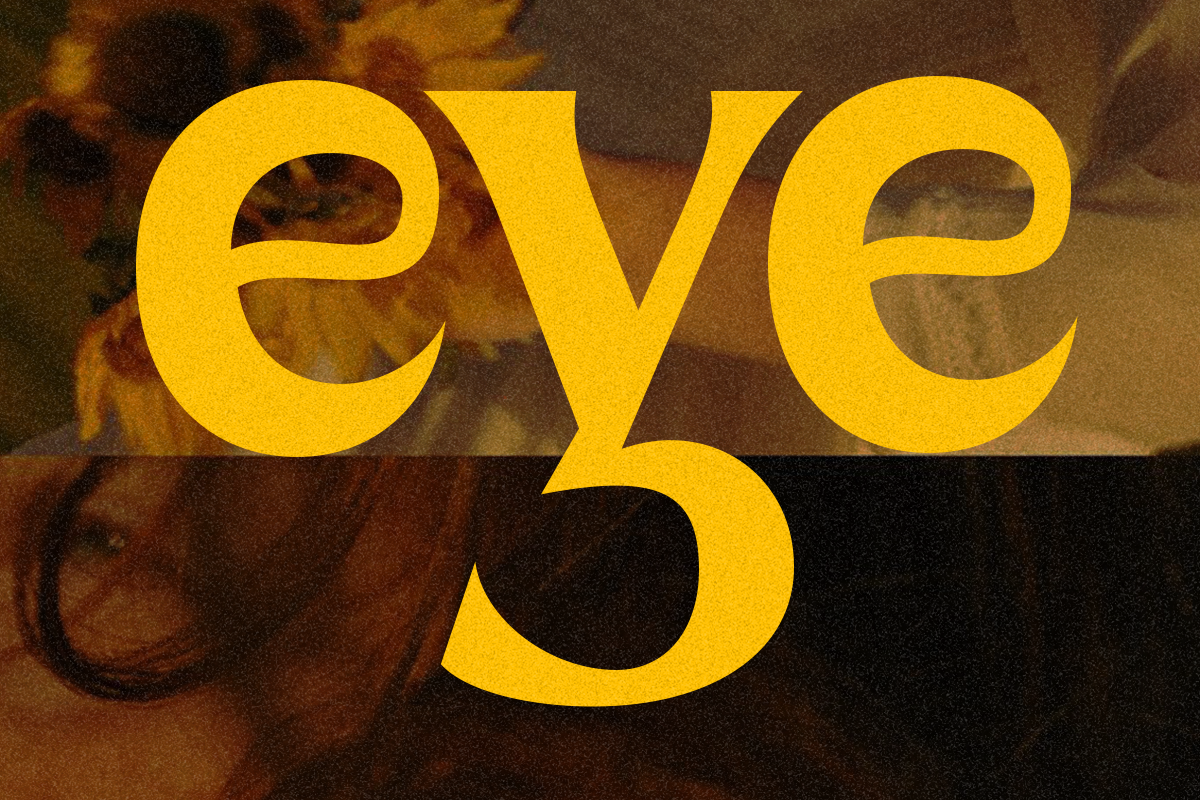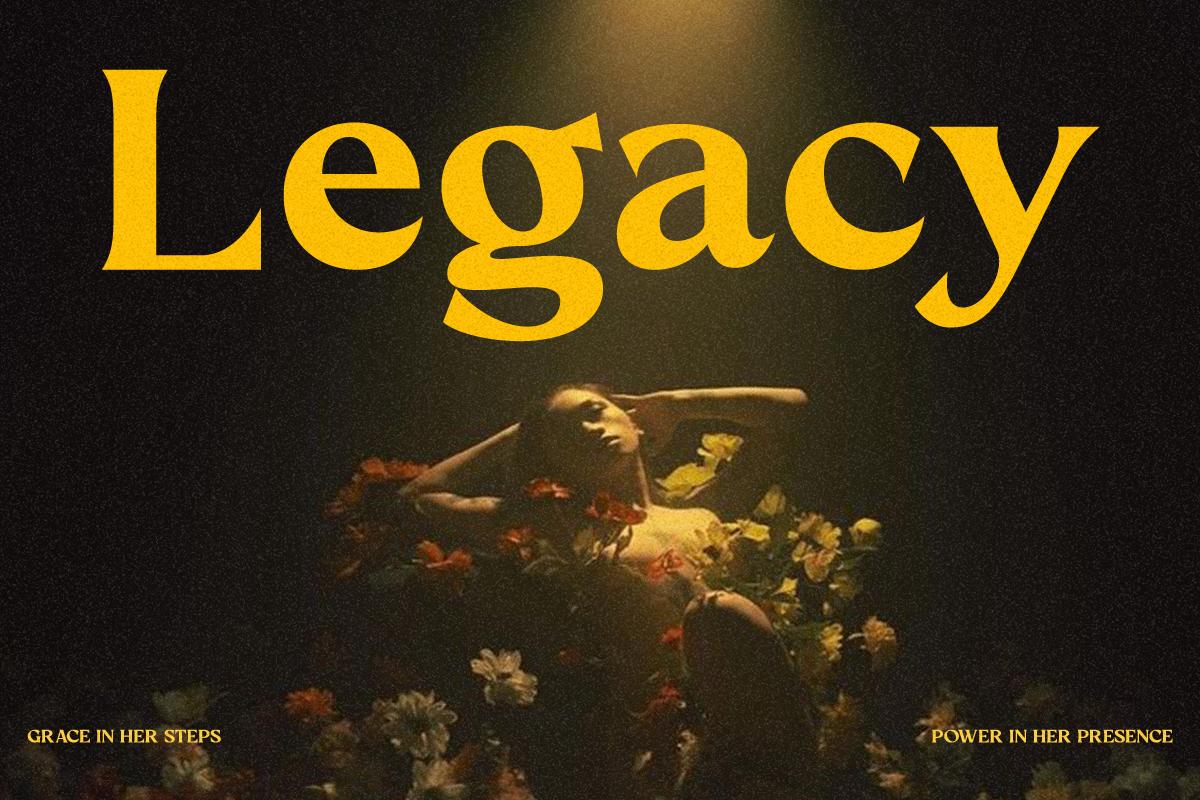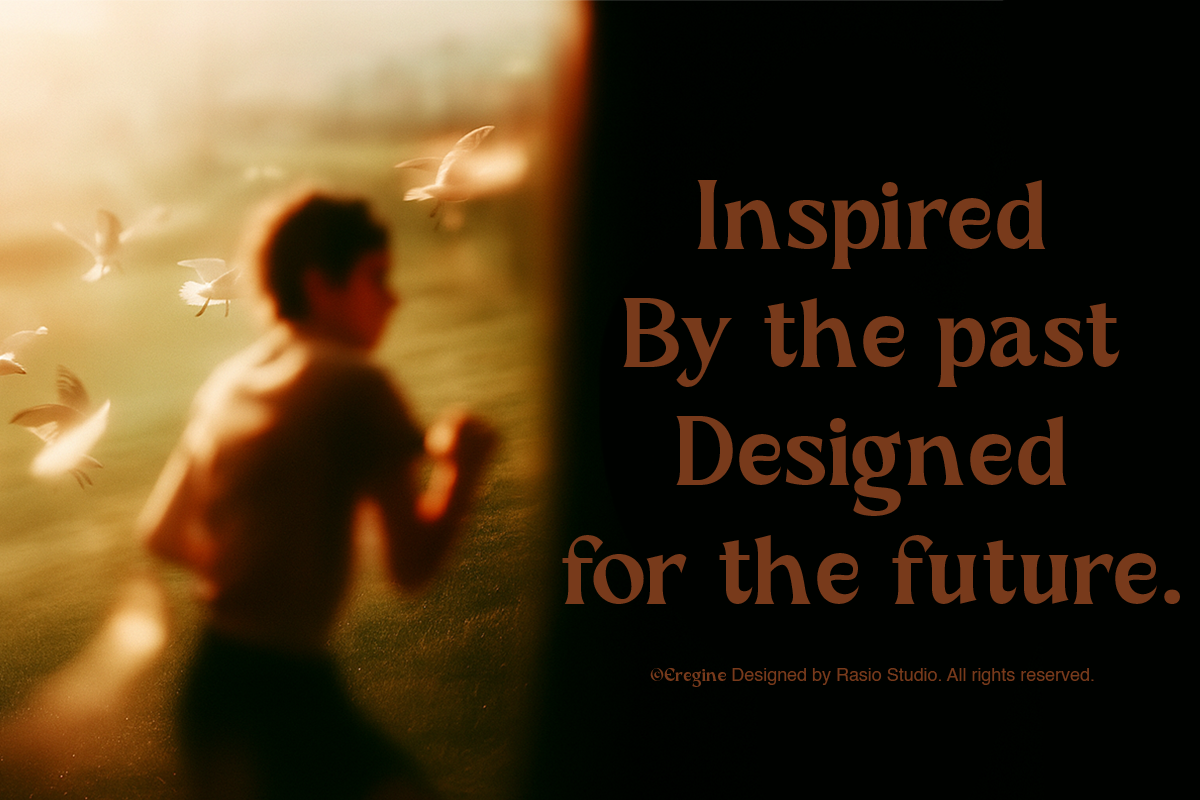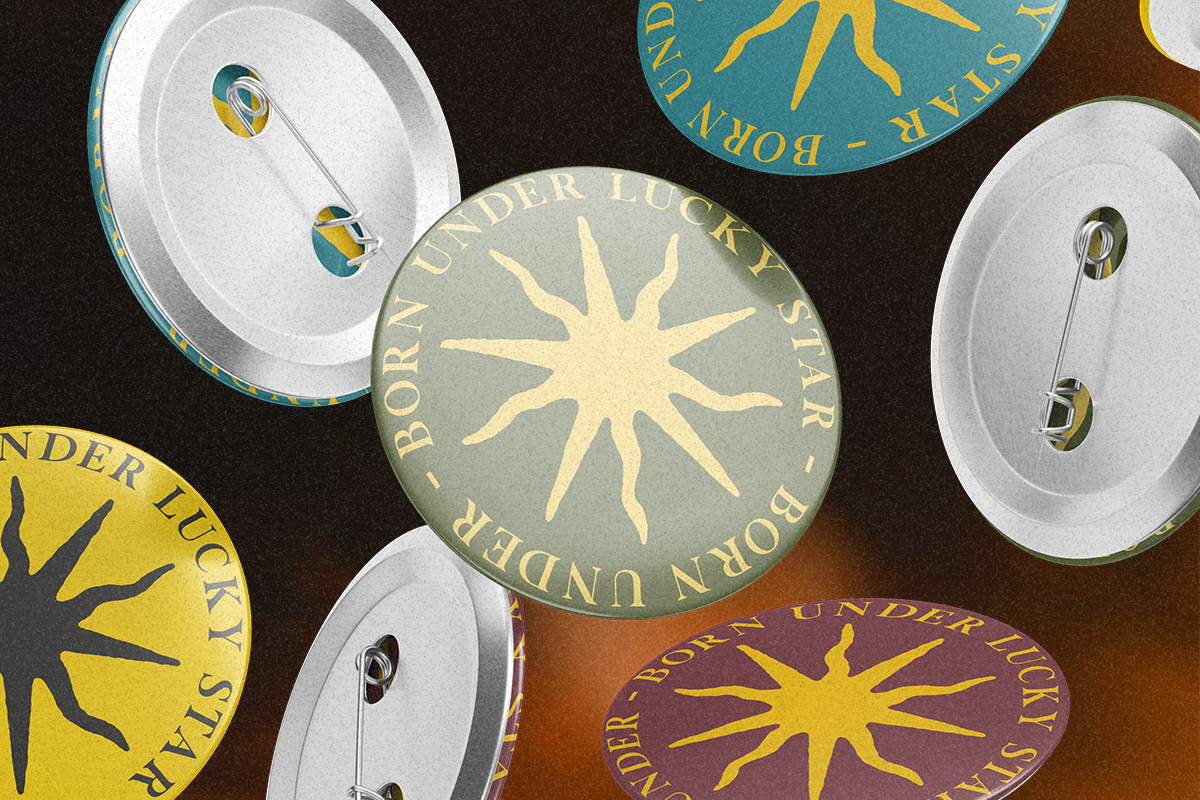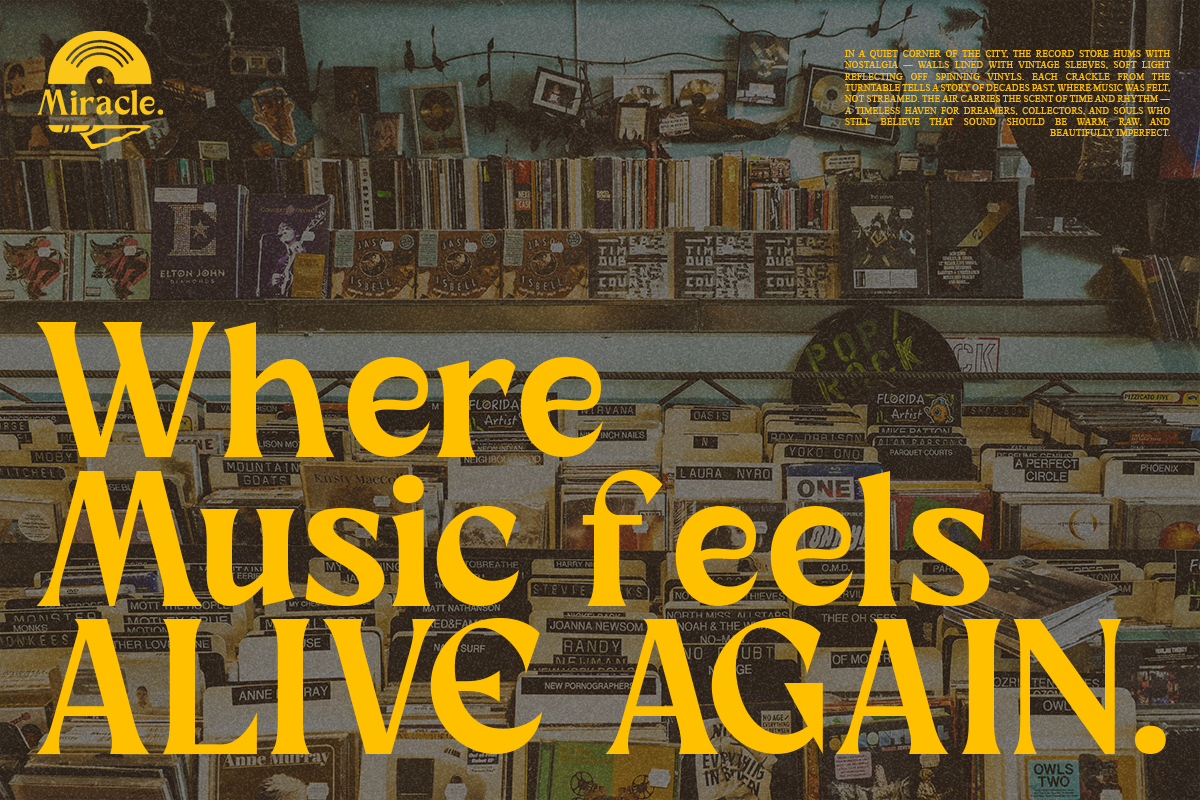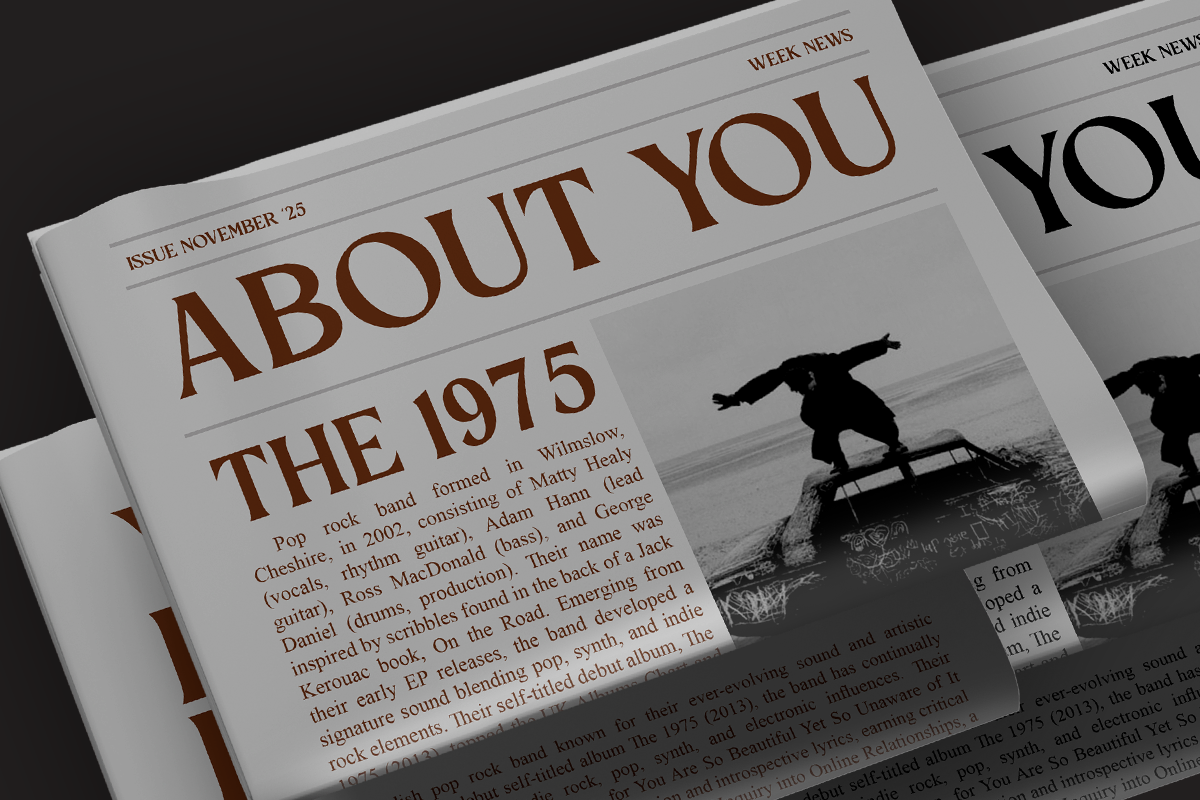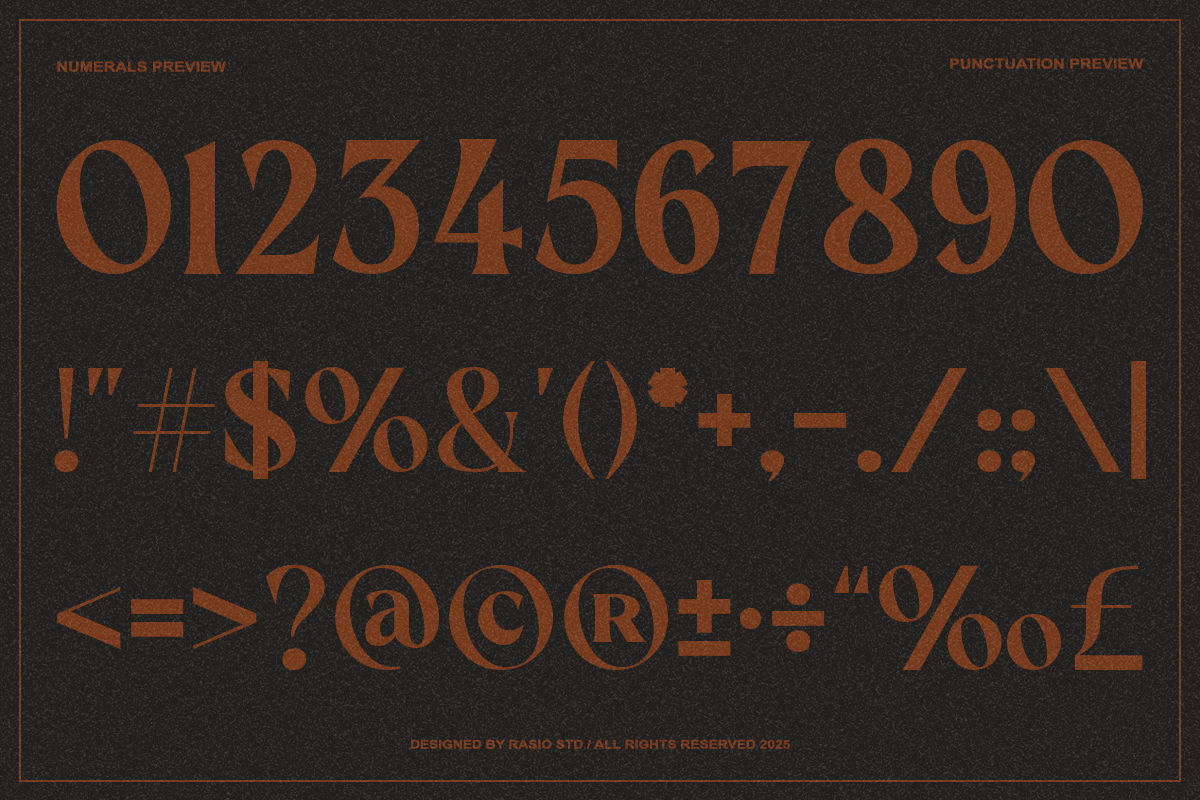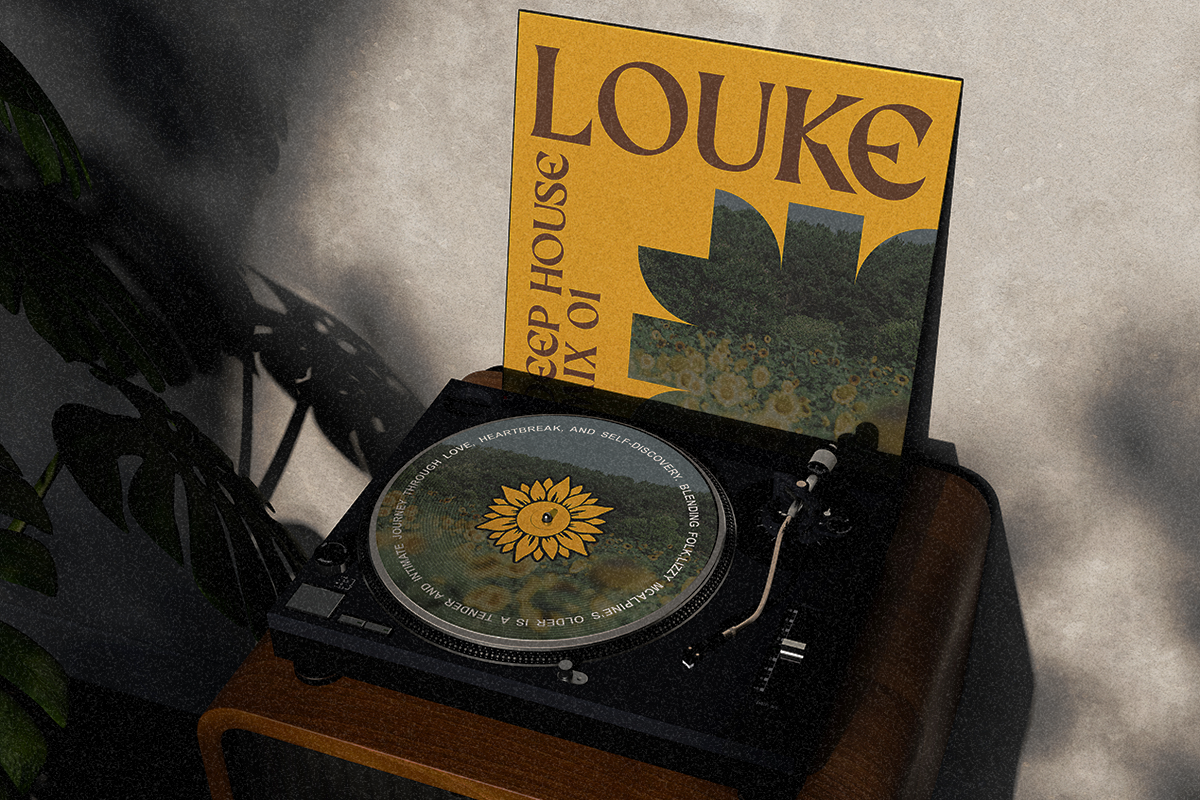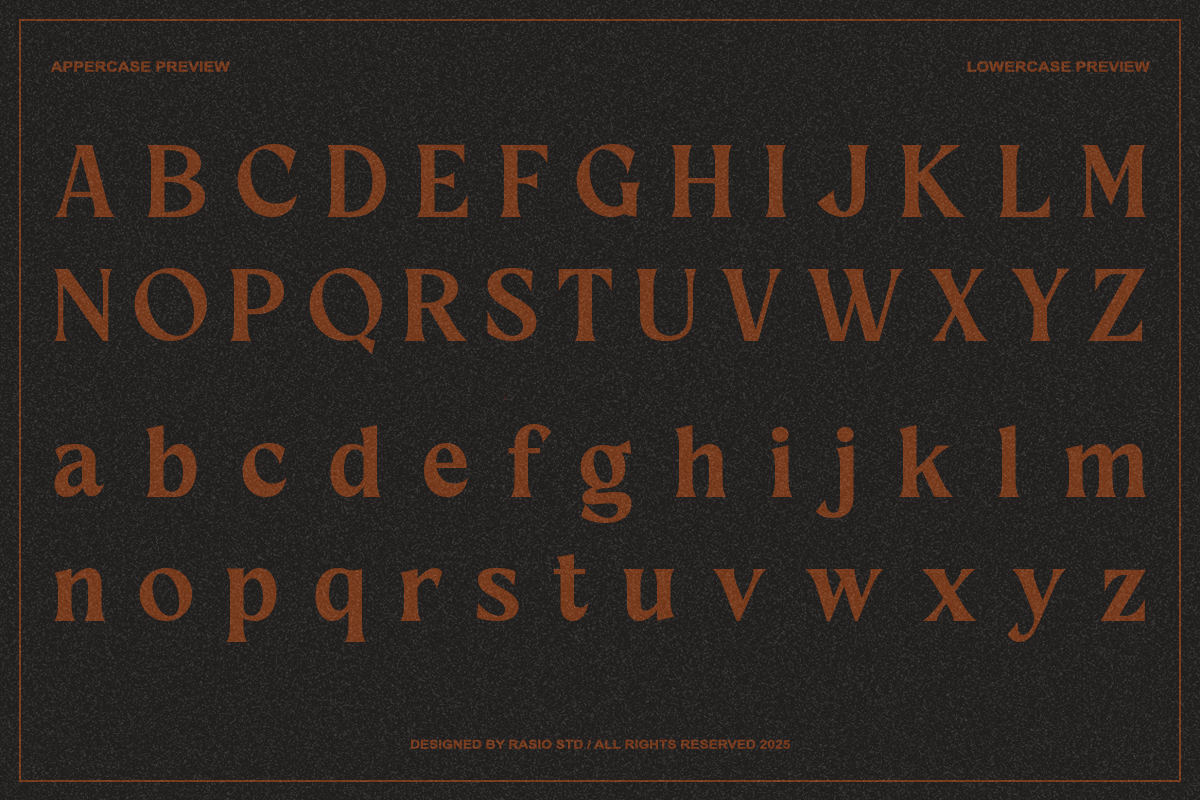
Eregine Retro Display Serif Font
Eregine is a retro-inspired display serif typeface featuring strong contrast, elegant curves, and classic letterforms rooted in vintage editorial design. This typeface includes complete uppercase and lowercase characters, numerals, punctuation, multilingual accents, and refined alternates for expressive typographic compositions. Each glyph is crafted with high attention to detail, combining bold retro charm with modern legibility suitable for both digital and print use.
Relevance and Use Cases is perfect for designers who need a bold, expressive serif with retro-classic aesthetics for branding, logo design, posters, packaging, editorial layouts, restaurant branding, boutique identities, social media graphics, signage, merchandise, and creative promotional materials. Its strong shapes and refined contrast make it ideal for any project that aims to evoke nostalgia, sophistication, and visual impact.
- Retro serif construction with strong vintage editorial influence
- High contrast strokes combining bold presence and refined elegance
- Distinctive curved terminals and sharp serif details for character
- Classic proportions inspired by old-style and transitional typefaces
- Decorative yet balanced letterforms for impactful display use
- Editorial layouts, magazine headlines, and classic print design with a vintage tone
- Branding projects that require a bold, elegant, and nostalgic serif identity
- Packaging design for luxury, heritage, or artisanal products
- Poster designs, album covers, and retro-themed visual campaigns
- Social media graphics and marketing visuals with a dramatic and timeless aesthetic